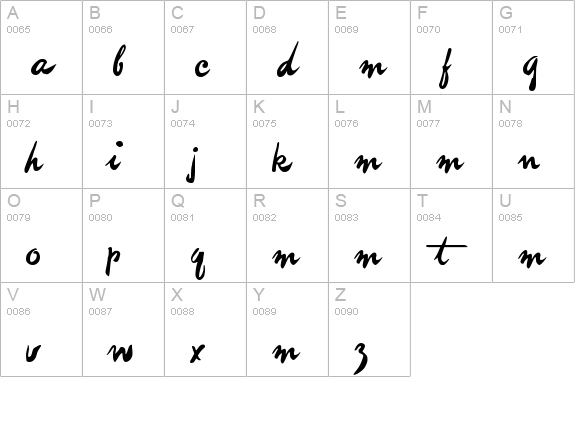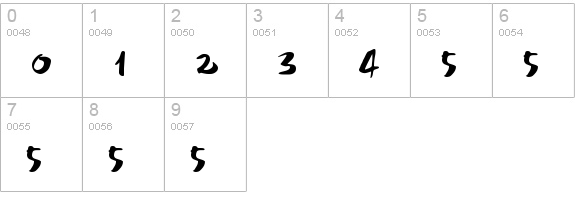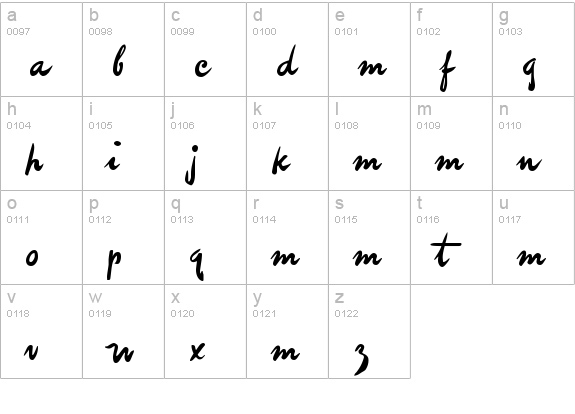
imitationDemo Font Details
ImitationDemo font is a stylish and versatile typeface that exudes elegance and creativity. Its unique design features delicate curves and intricate details that make it perfect for adding a touch of sophistication to any project. Whether you're designing a logo, creating a poster, or working on a branding project, ImitationDemo font is sure to make a lasting impression. Best of all, ImitationDemo font is available for free download at FontsMarket.com. Simply visit the website and start using this stunning font in your designs today. Don't miss out on this fantastic opportunity to elevate your projects with the beauty and charm of ImitationDemo font.